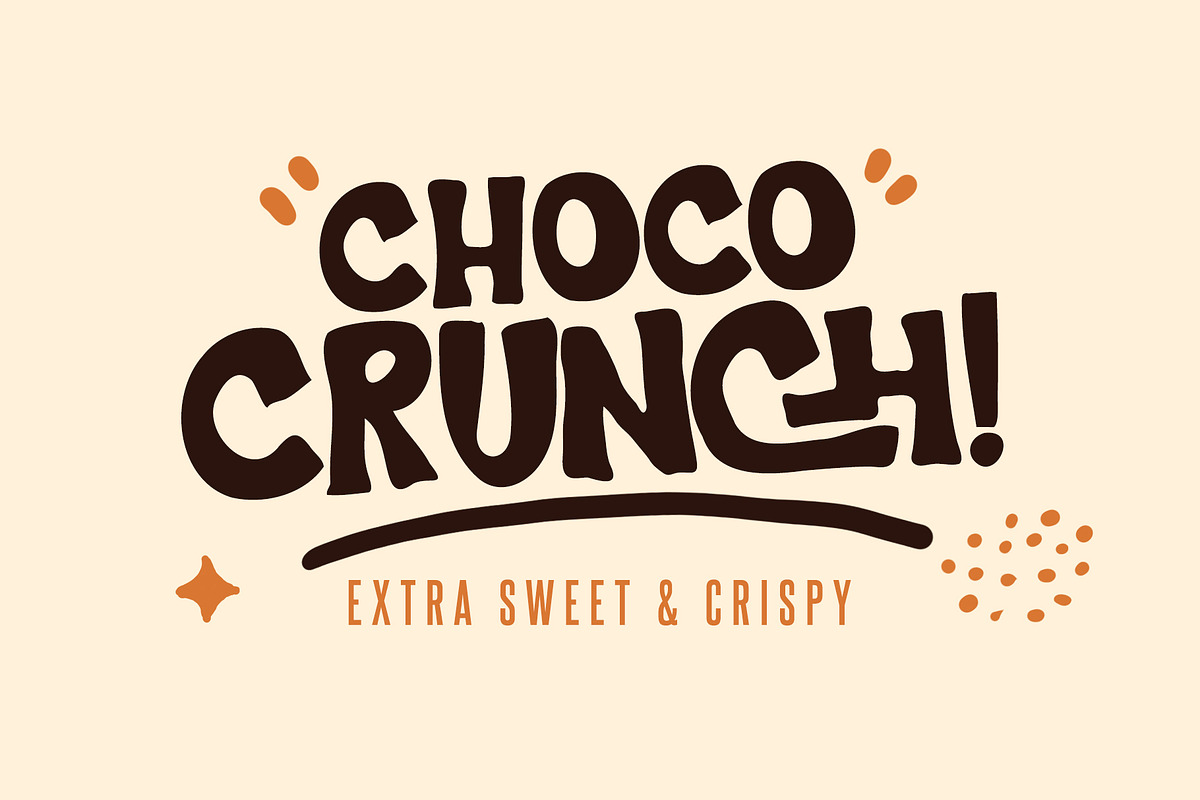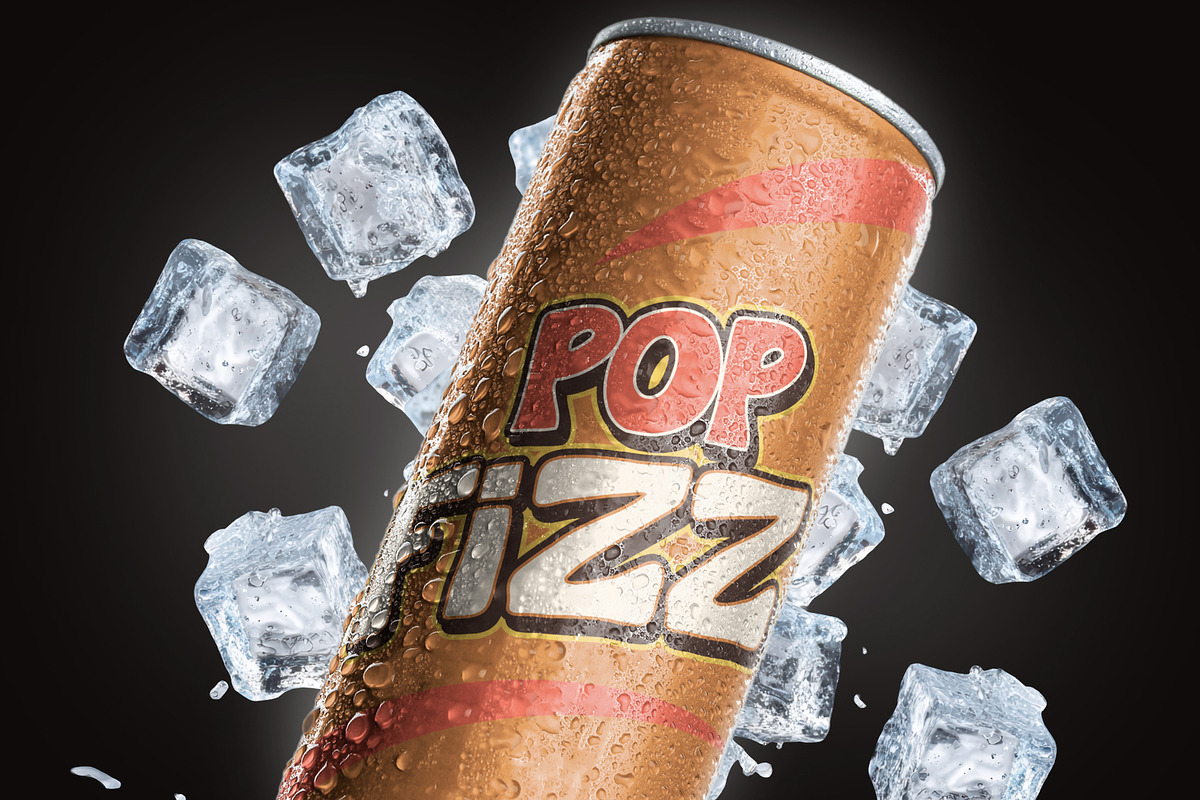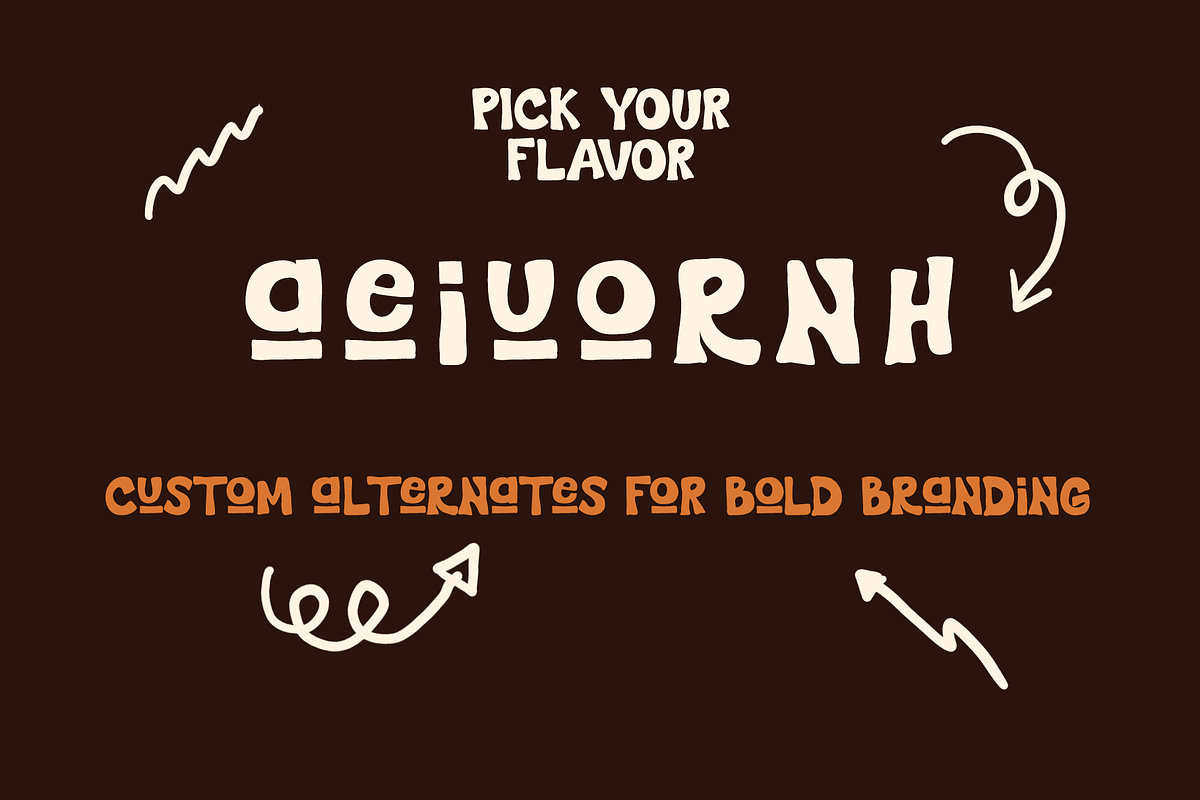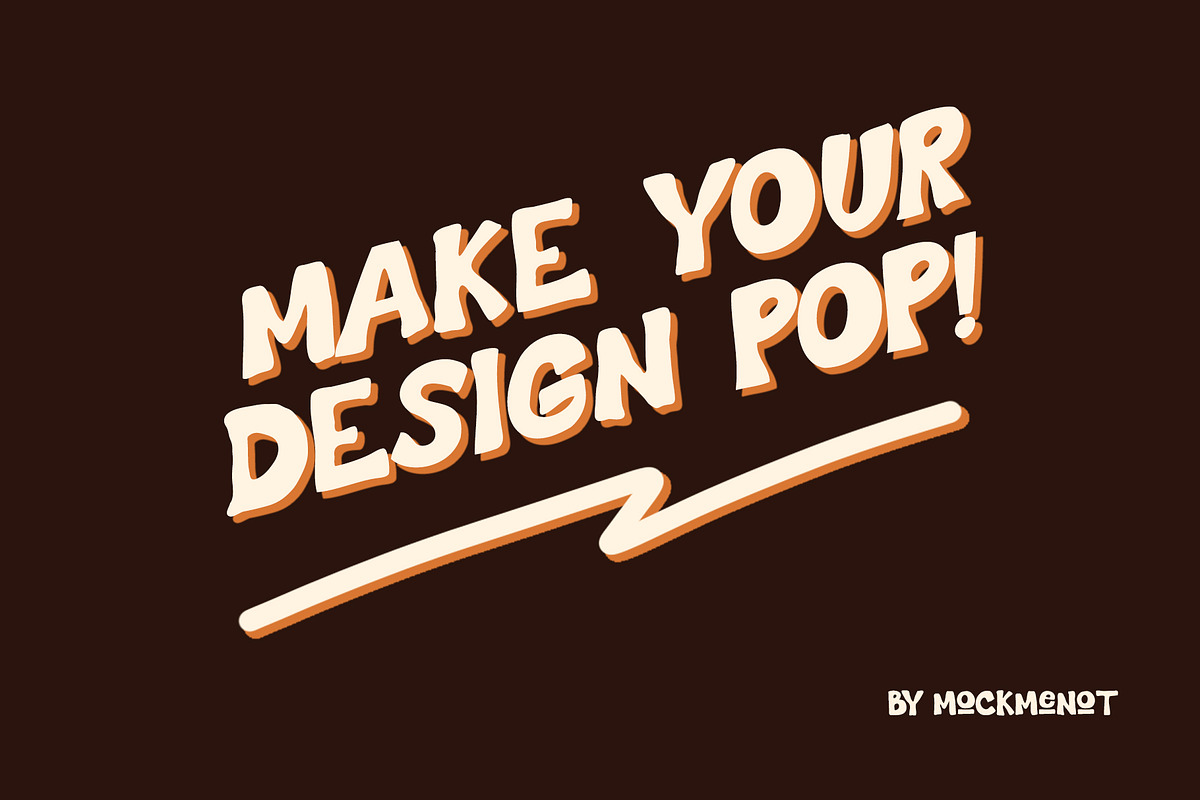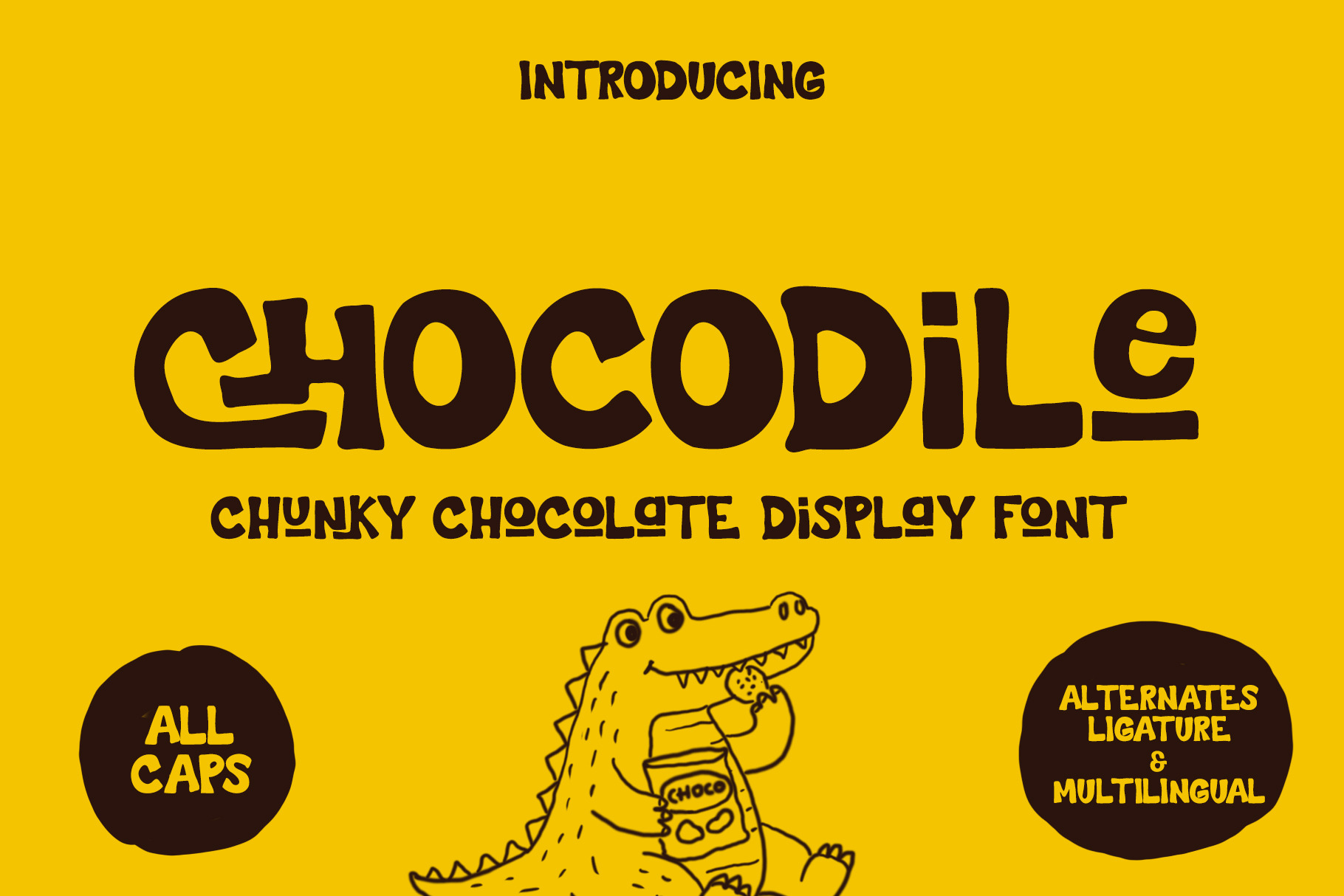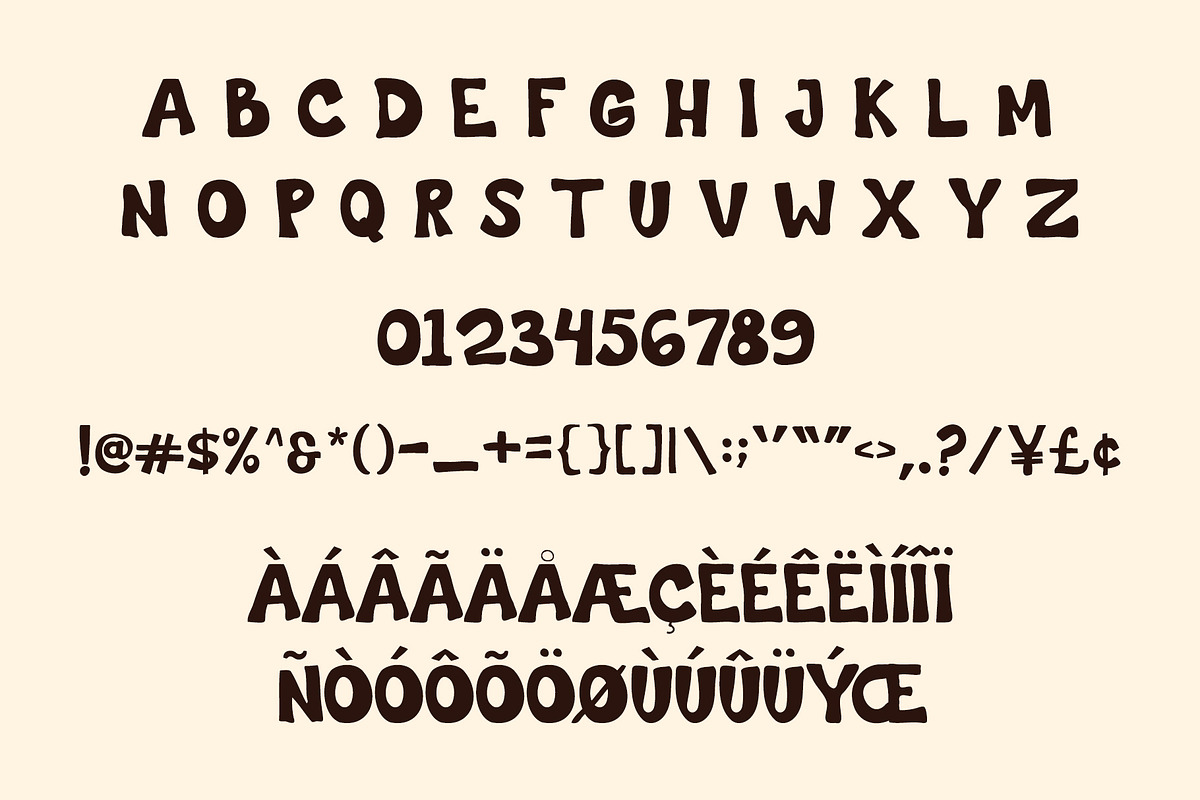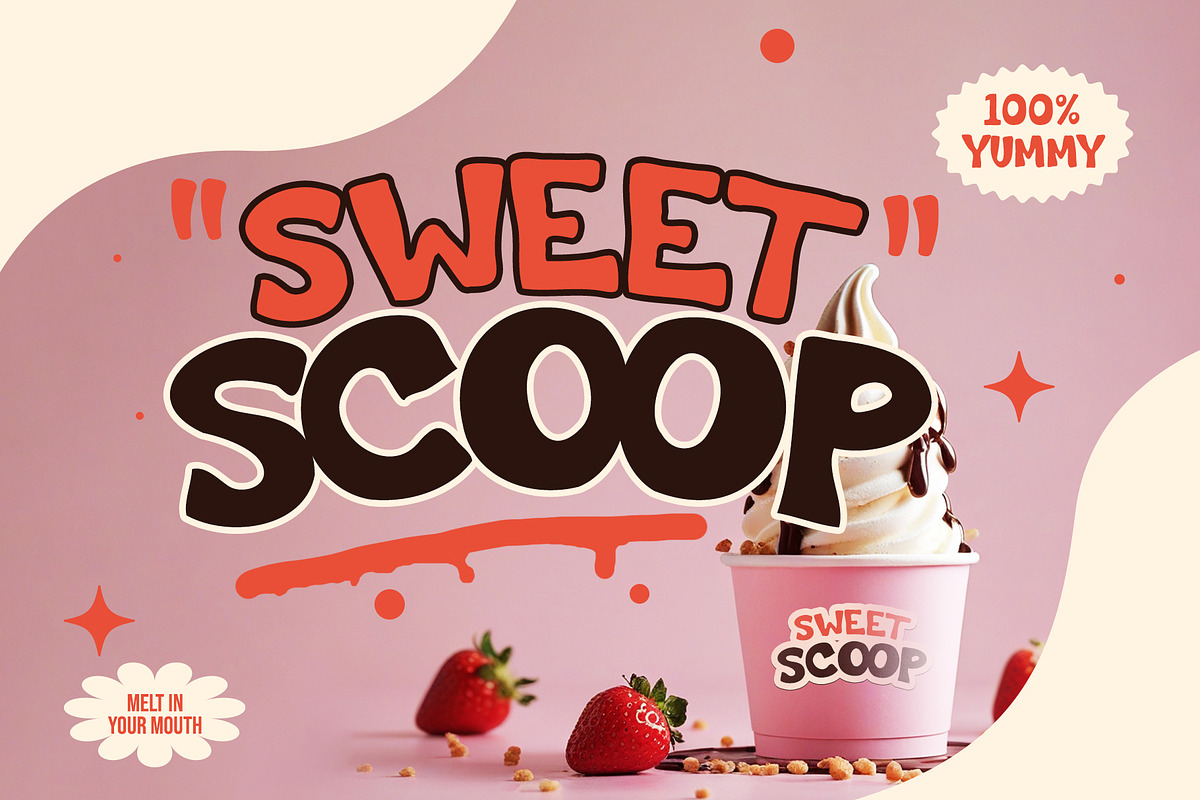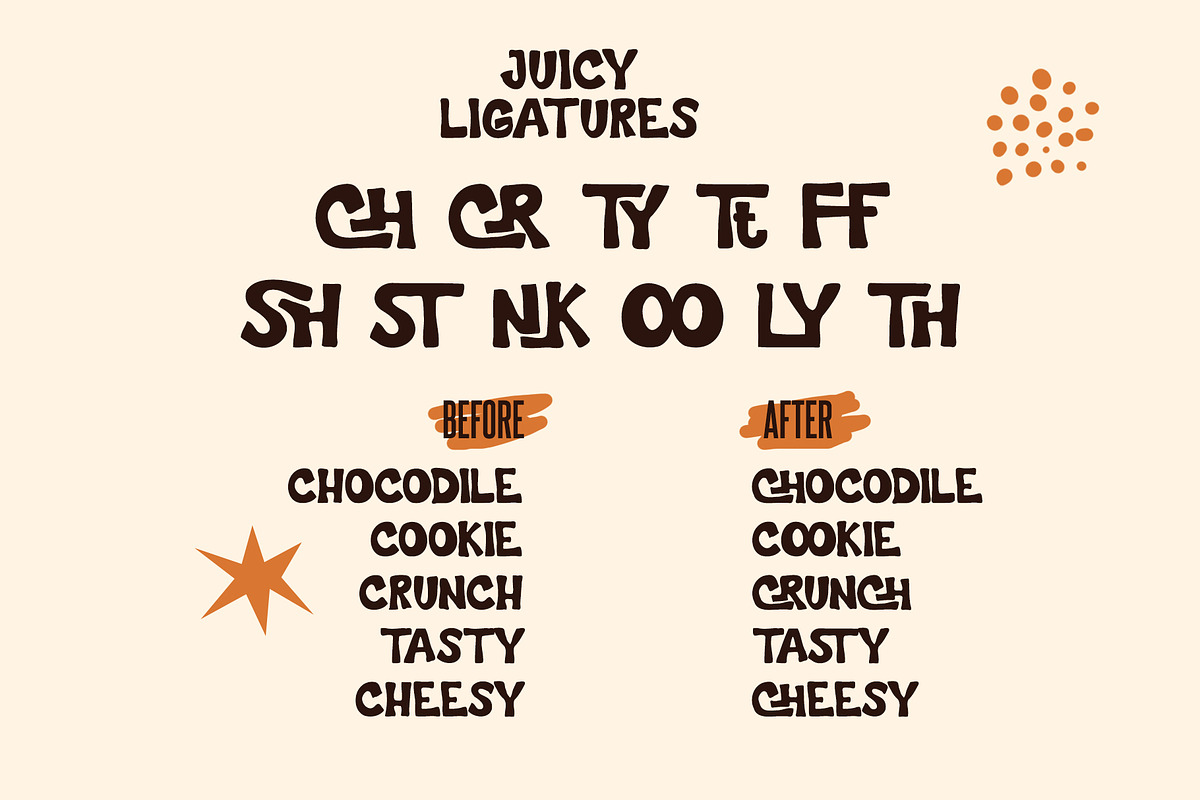
Chocodile - Fun Snack Typeface
CHOCODILE is a bold playful display font inspired by modern snack branding, chocolate packaging, and dopamine-style typography trends. With its chunky organic shapes, juicy ligatures, and fun personality, this font is perfect for food branding, posters, packaging, cafe menus, logos, social media, and playful editorial designs.
Designed to feel sweet, loud, and highly brandable — CHOCODILE brings a fresh modern flavor to your typography collection.
\\\\\\\\- Uppercase Letters
\\\\\\\\- Numbers & Punctuation
\\\\\\\\- Stylistic Alternates
\\\\\\\\- Custom Ligatures
\\\\\\\\- Multilingual Support